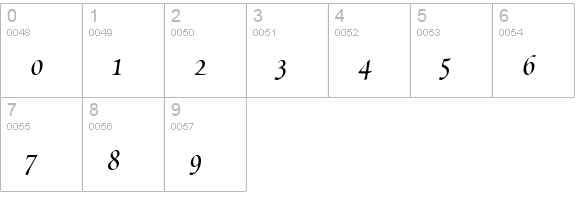
Scriptoria SSi Font Details
Scriptoria SSi is a stunningly elegant font that effortlessly combines traditional calligraphy with a modern twist. With its delicate strokes and graceful curves, this typeface exudes sophistication and refinement, making it the perfect choice for any project that aims to convey a sense of class and timeless beauty. The meticulously crafted letterforms of Scriptoria SSi showcase the impeccable attention to detail that went into its creation. Each character flows seamlessly into the next, creating a harmonious rhythm that is both visually captivating and pleasing to the eye. Whether used for headlines, invitations, or branding materials, this font is sure to captivate and leave a lasting impression. One of the most remarkable aspects of Scriptoria SSi is its versatility. It effortlessly transitions from formal to casual settings, adapting to any design context with ease. Its versatility extends to its language support, making it suitable for a wide range of projects across different cultures and regions. What's even better is that Scriptoria SSi is freely available to download at FontsMarket.com. This means that you can bring the elegance and sophistication of this font into your designs without any cost. Whether you are a professional designer, a student, or simply someone with a passion for typography, Scriptoria SSi offers you the opportunity to elevate your work with its timeless charm. So, don't miss out on this remarkable font. Download Scriptoria SSi today from FontsMarket.com and unlock a world of creativity and beauty.